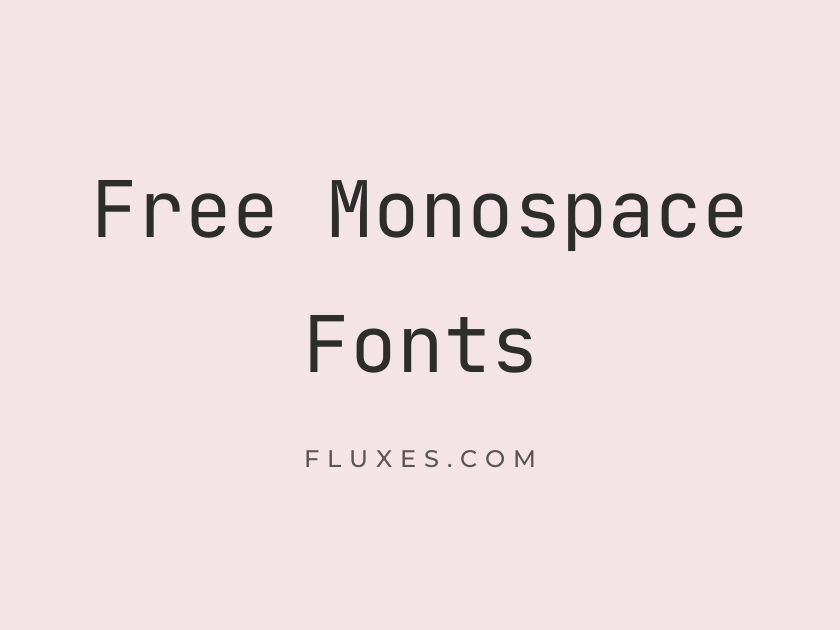
45 Best Free Monospace Fonts
Monospace fonts trace their DNA back to typewriters and teleprinters, where every character, from a narrow “i” to a wide “m,” had to occupy exactly the same width. That fixed-width discipline now defines the visual rhythm of code editors, terminals, spreadsheets, and any interface where columns of text need to line up with mechanical precision. Free monospace fonts have improved enormously in the last decade, and Google Fonts hosts some of the strongest options available for developers, technical writers, and designers who want that clean, structured feel without a license fee.
Some of these are built for eight-hour coding sessions, with careful attention to distinguishing zero from O and one from lowercase L. Others exist purely for their personality, borrowed from typewriters, terminals, arcade cabinets, and cockpit displays to bring a technical or nostalgic mood to headlines, branding, and UI.
Clean syntax highlighting for every code editor
Built by the company behind IntelliJ and PyCharm, this is a font designed by programmers for programmers, with a tall x-height and open apertures that stay legible through long debugging sessions.
It ships with optional ligatures that turn sequences like “=>” and “!==” into single glyphs, and it has quietly become the default choice for a huge share of developer tooling.
Fira Code
Arrow functions rendered as clean ligatures
Fira Code
Fira Code took Mozilla’s Fira Mono and added programming ligatures, so comparison operators and arrows visually merge into cleaner symbols inside supporting editors. It’s a favorite for screenshots of code because it looks unusually tidy, though those ligatures only render in editors and apps that support them, not in a plain browser text field.
Fira Mono
Steady terminal output without any ligatures
Fira Mono
This is the calmer sibling to Fira Code, stripped of ligatures and built originally for Firefox OS. It reads as slightly warmer and more humanist than most coding fonts, which makes it a solid pick for documentation and technical blog posts as well as editors.
Source Code Pro
Adobe's workhorse for clean syntax highlighting
Source Code Pro
Adobe designed this one to be as neutral and unobtrusive as possible, which is exactly what you want in a font that spends its life sitting behind syntax-highlighting colors. It has no strong personality of its own, and that restraint is the whole point.
Corporate documentation with technical precision
Part of IBM’s expansive Plex superfamily, this mono carries the same understated, slightly geometric character as Plex Sans and Plex Serif, so all three combine naturally in a single design system. It reads as professional and technical without tipping into cold or sterile, which suits developer documentation, dashboards, and API references.
Terminal output for Android and Material apps
As the fixed-width companion to Roboto, this font shows up constantly in Material Design interfaces and Android development tools. It’s a safe, tidy choice anywhere you need numeric alignment in tables or dashboards without introducing a font that clashes with a Roboto-based UI.
Retro-futuristic type for terminal experiments
Space Mono has a quirky, slightly wonky personality, with a distinctive double-story lowercase “g” and squared-off curves that feel more like branding type than code type. Designers reach for it constantly outside of development work, on posters, packaging, and websites that want a retro-tech mood, and it pairs nicely with a plain serif for contrast.
Inconsolata
One of the original beloved coding fonts
Inconsolata
Long before the current wave of developer-focused typefaces, Inconsolata was already the font programmers requested by name. Its humanist warmth and generous spacing still hold up, and it remains a dependable, slightly softer alternative to stricter grotesque coding fonts.
Ubuntu Mono
The default terminal font on Ubuntu systems
Ubuntu Mono
This is the fixed-width partner to the Ubuntu typeface family, carrying the same rounded, friendly curves into a monospace grid. Anyone who has spent time in a Linux terminal will recognize its shape instantly.
Cousine
Legacy documents that need Courier New spacing
Cousine
Cousine was built to be metrically compatible with Courier New, meaning text set in one will wrap and paginate the same in the other. That makes it a genuinely useful upgrade when converting old documents or templates that were locked to Courier New’s exact character widths.
When in doubt, test at the actual size you plan to use. Some of these fonts, especially the pixel and terminal styles, look fantastic at display sizes and fall apart in a paragraph.
Between screenwriting software, developer tools, dashboards, and retro-inspired branding, monospace type covers a surprising amount of ground. With this many solid free options on Google Fonts, there’s rarely a good reason to reach for a paid alternative.